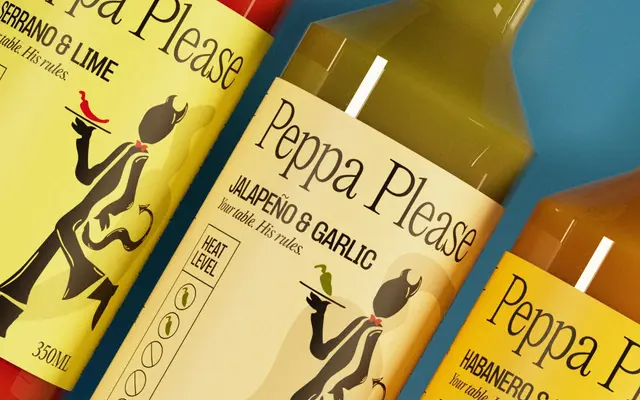
Formula
Pangram Foundry · Mat Desjardins
A wide-ranging grotesque from Mat Desjardins spanning six widths and nine weights, with italics and variable cuts throughout, aimed at campaign and branding work.
Formula runs from Condensed to Extended across 108 static styles, each width offering nine weights from Thin to Black with matching italics, plus variable font cuts. The design leans on a bold, kinetic character suited to motorsport-adjacent branding and campaign work, while lighter weights in the Normal width are serviceable for body text. Hugo Jourdan contributed updates in version 2.0, released March 2022.
Pangram classify Formula as Grotesk and Sans Serif; it spans six widths from Condensed to Extended with a racing-inspired character and grotesque structure.